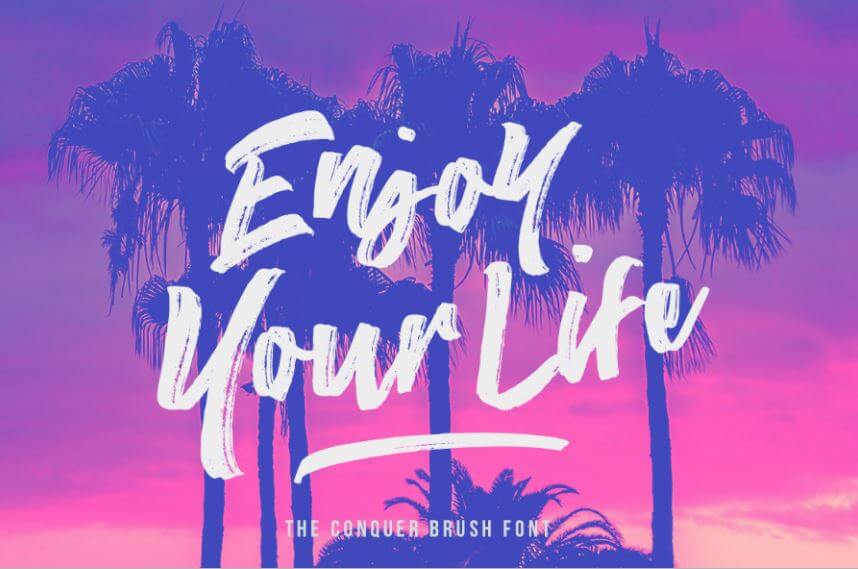
The Conquer Brush Font
Introducing the Conquer Brush Font, a trendy new font option for all your artistic endeavors. Discover the numerous benefits of this stylish typeface.
I would like to introduce here for you the conquer brush font which is like ailerons Typeface! the conquer arrived here by means of dirty line goods.
Style of The Conquer Brush Font